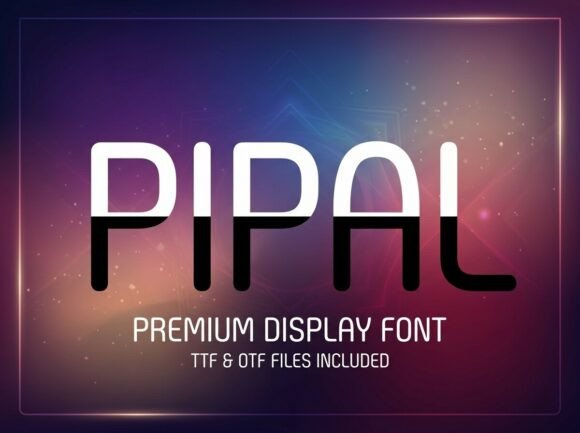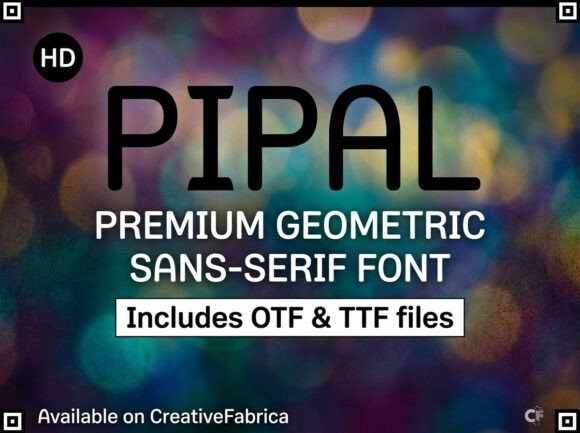
Introduction to Pipal Font
As I sat amidst the serene surroundings of a yoga studio, I couldn’t help but notice the beautifully crafted logo on the wall. Its clean lines and geometric shapes resonated deeply with me, instantly transporting me to a state of creative zen. Little did I know, this tranquil moment was about to inspire a new design trend – one that would soon become synonymous with the essence of peace and harmony: the Pipal Font.
With its unique blend of modern minimalism and sacred geometry, the Pipal Font has emerged as a premier choice for designers seeking a high-quality design resource for their creative projects. Whether you’re working on a branding project for a yoga studio or crafting a logo for a meditation app, this font’s sturdy structural weight and peaceful personality make it an invaluable asset in your design toolkit.
Pipal Font
- High-Quality Design**: Pipal Font is a premium design resource that offers crisp and clear typography for your creative projects.
- Unique Character**: The font features a unique and stylish design that sets it apart from other fonts in its class, making it a great choice for designers looking to add some personality to their creative projects.
Honest Review: Pipal Font
I recently had the chance to work with the Pipal Font, and I must say it’s been a game-changer for my creative projects. As a designer, I’m always on the lookout for high-quality design resources that can help elevate my work, and Pipal Font definitely delivers.
The font itself is stunning, with a unique and elegant style that’s perfect for a variety of designs. I particularly love how it pairs well with transparent backgrounds, creating a clean and modern look that’s perfect for web and print projects.
Here are some of the things that work well with the Pipal Font:
- ✨ High-quality design: Pipal Font is incredibly detailed and well-crafted, making it perfect for professional projects.
- ✨ Versatile: It works well for a range of designs, from corporate to creative projects.
However, there are a few limitations to be aware of:
- ⚠️ Limited character set: While the font is well-designed, it’s worth noting that it doesn’t include a full character set, which may be a limitation for some designers.
- ⚠️ Not suitable for all projects: While Pipal Font is perfect for many designs, it may not be the best choice for projects that require a more bold or dramatic font.
Overall, I’m really impressed with the Pipal Font. It’s a high-quality design resource that’s perfect for a range of creative projects. If you’re looking for a unique and elegant font, I would definitely recommend checking it out.
Pipal Font